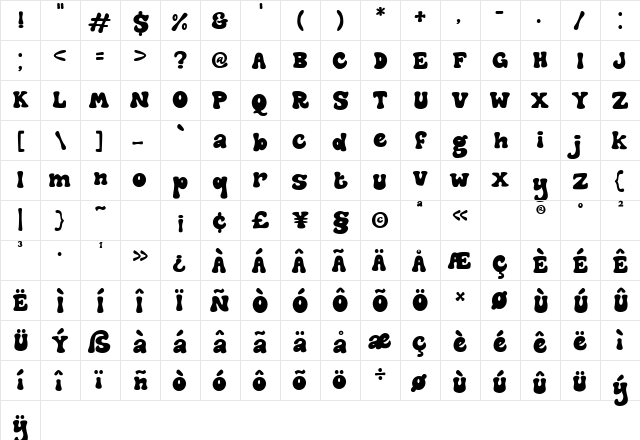
The Meshroom-DEMO Regular
| Foundry | Atasi Studio |
| Designer | Rizka Prayuda |
Design Context for The Meshroom-DEMO Typeface
The Meshroom-DEMO is a composed and adaptable typeface that performs quietly and consistently across a wide range of design contexts.